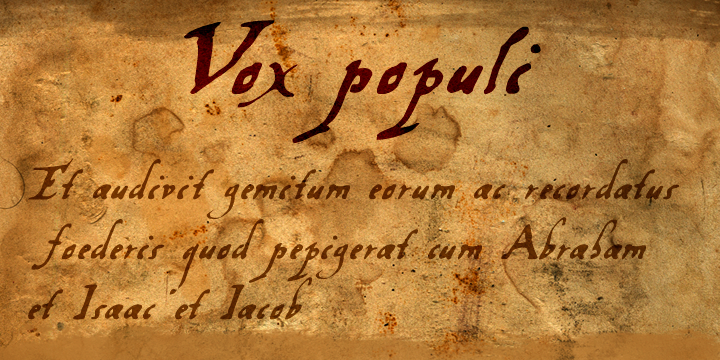
The Vox Populi Font is perfect for political campaign materials, grassroots movement posters, community organization branding, public service announcements, social justice designs, activist publications, democratic event signage, civic engagement graphics, protest banners, and revolutionary messaging materials.
What makes the Vox Populi Font exciting is its powerful ability to capture the authentic voice of the people through bold, uncompromising letterforms that embody the spirit of democratic expression and social movement. This commanding typeface features strong character construction, populist proportions, and revolutionary design elements that instantly convey strength, unity, and the collective power of ordinary citizens standing together for change. Each letter represents the unwavering determination of grassroots movements fighting for justice and equality.
The Vox Populi Font family includes regular, bold, condensed, and stencil versions, along with activist symbols, democratic ornaments, and movement-inspired decorative elements that enhance its populist appeal across various social and political design applications.
Whether you're creating grassroots campaign identities or designing social movement materials, Vox Populi Font Free Download delivers maximum impact and authentic populist credibility. Its powerfully crafted letterforms ensure strong readability while maintaining that essential people-powered character that resonates with citizens seeking genuine democratic representation. The font's movement features include contextual alternates, protest-ready ligatures, and revolutionary variations that automatically create authentic grassroots aesthetics. Political organizers and social movement designers consistently choose this font for projects requiring genuine populist authority and democratic authenticity. The Vox Populi Font transforms ordinary text into powerful declarations of people's power, making it an indispensable weapon in any designer's democratic typography arsenal.